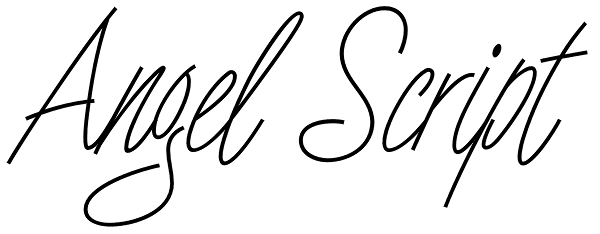
Angel Script
Angel Script is a light, contemporary monoline script. There are approximately 695 individual glyphs complete with Stylistic and Contextual Alternates, Titling Alternates, Swashes and even Old Style Numerals. Needless to say, there’s a lot ‘under...